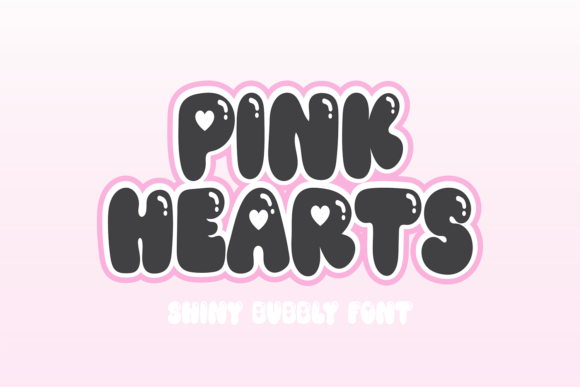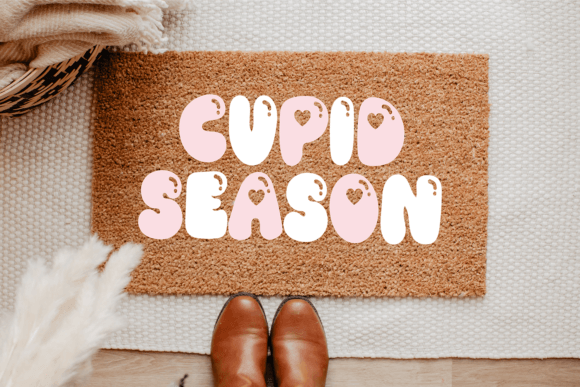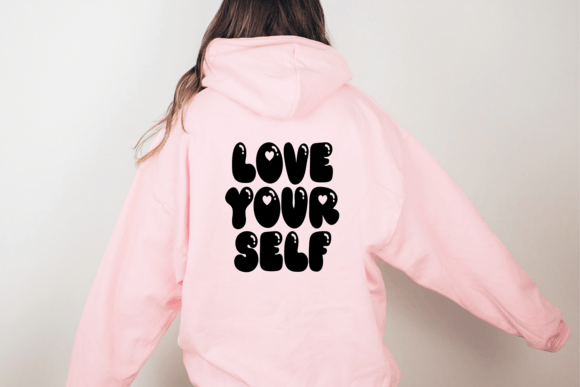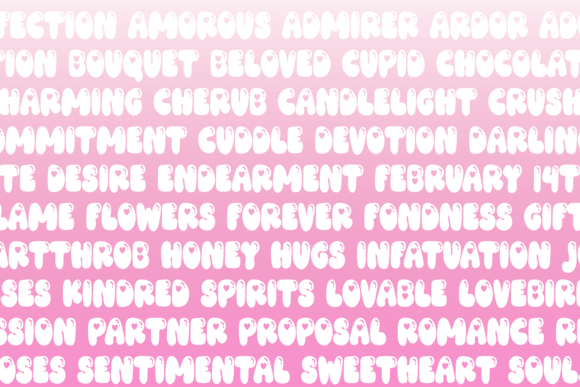
Pink Hearts Font
Pink Hearts is a bubbly and cute font that radiates joy and playfulness. With its whimsical design, this font adds a delightful touch to your projects. Each letter is adorned with charming pink hearts, creating a fun and lighthearted atmosphere. Perfect for adding a touch of sweetness to invitations, cards, or any creative endeavor, Pink Hearts is the go-to choice for those who want to infuse their designs with a dose of adorable charm. Let your text sparkle with the cheerful and lovable vibes of Pink Hearts.